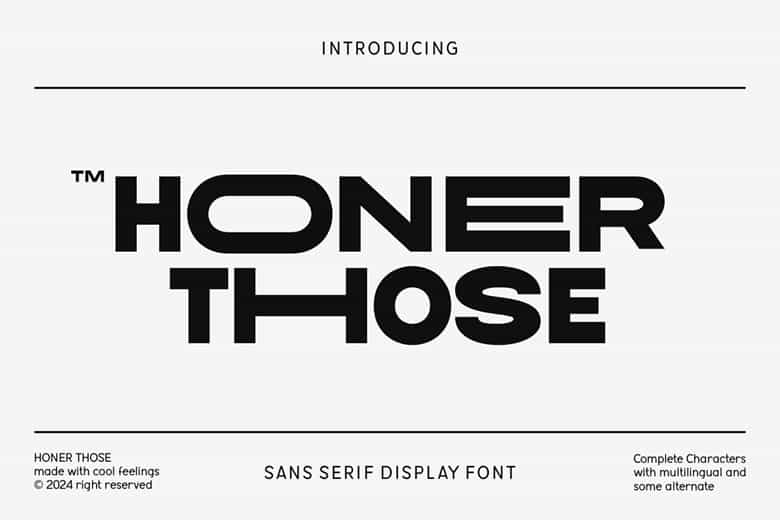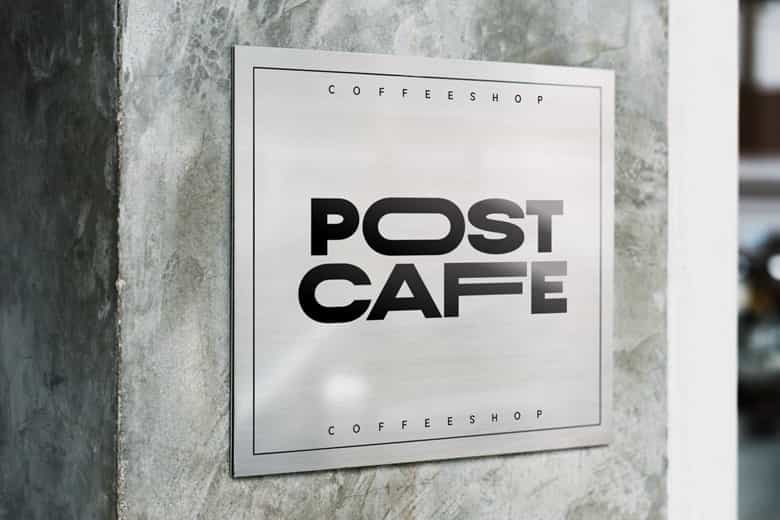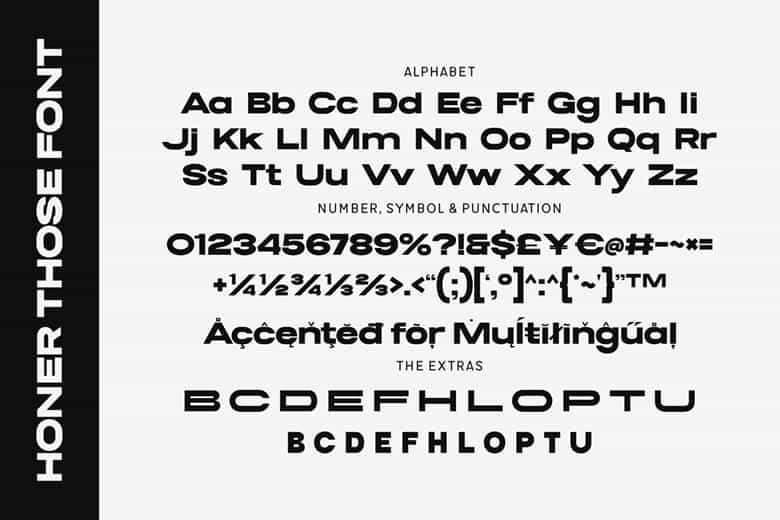
Discover Honer Those Font, part of the Sans Serif Display collection—a versatile and unique font perfect for adding a personal touch to your projects. Download it for free and enjoy crafting designs with style, from invitations to social media posts. This font is available exclusively for personal use, giving you the freedom to create without limits. Unlock your creativity with Honer Those Font today!